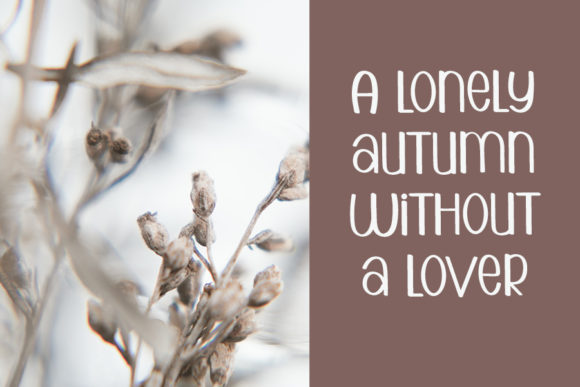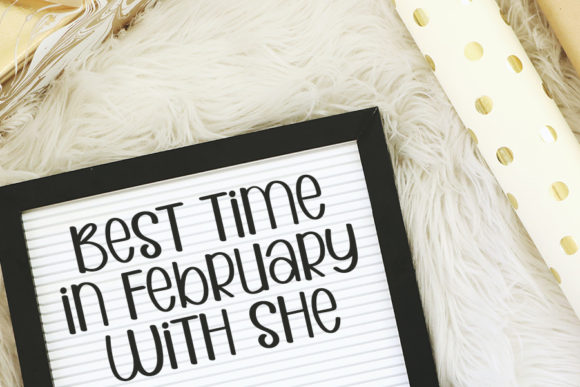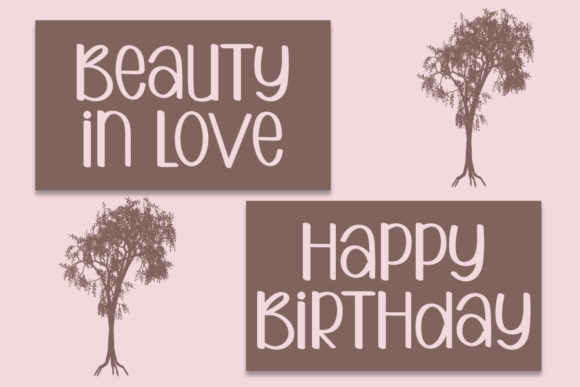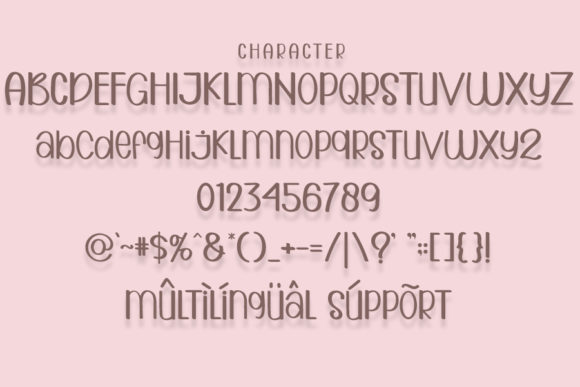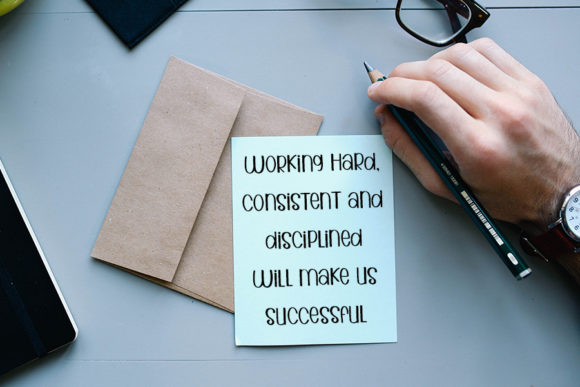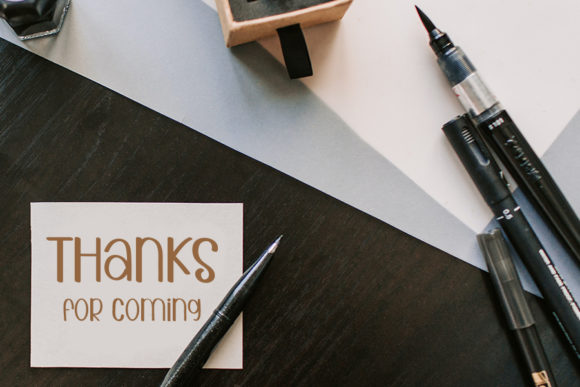
Introduction to Great Loves Font
Great Loves is a cute and charming display font.
Whimsical and a bit quirky, this font will brighten up each of your designs Add it confidently to your projects, and you will love the results.
Key Features of Great Loves Font